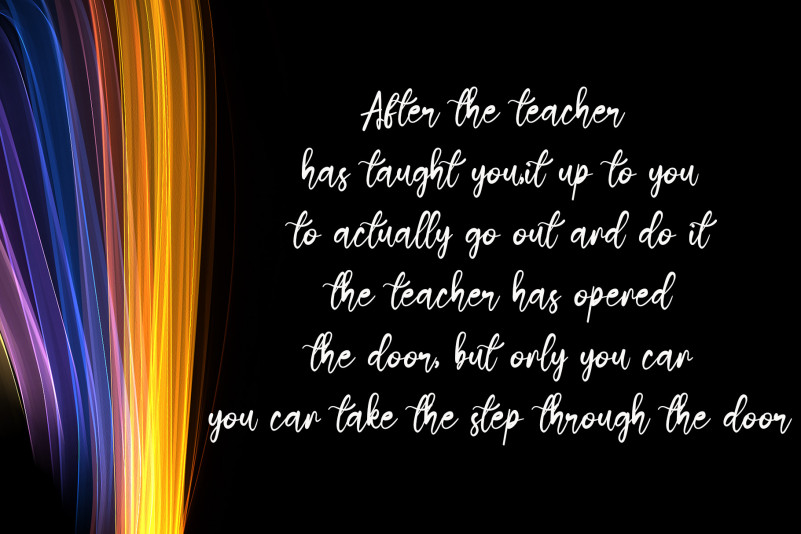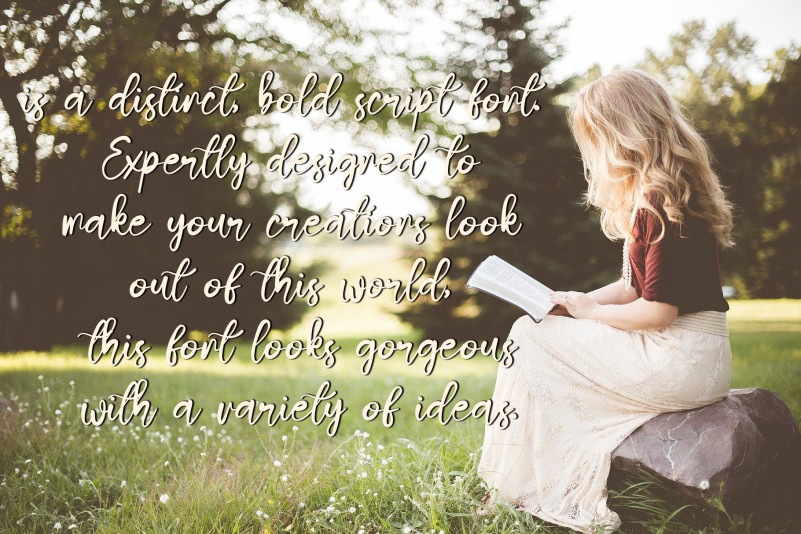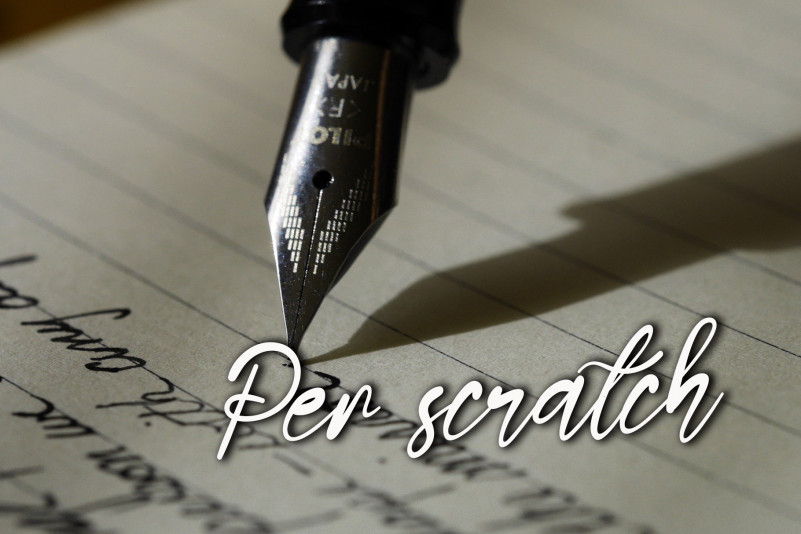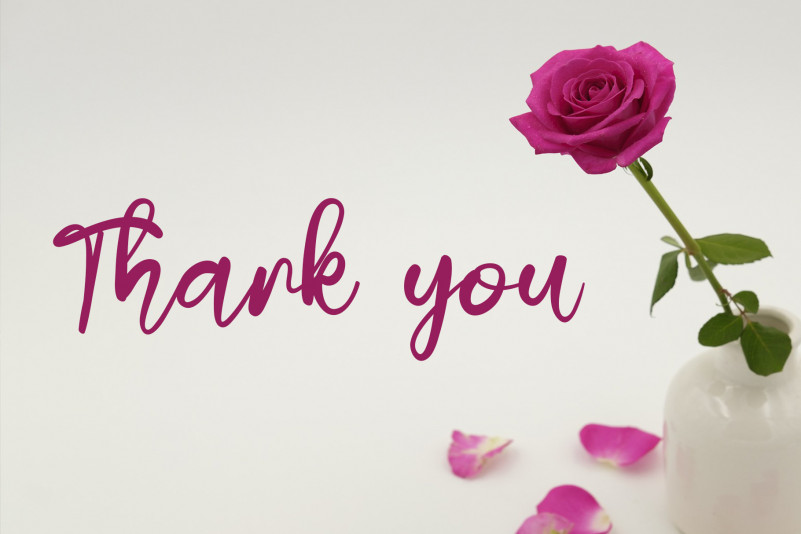
Sketchbook Script Font
This is a sweet and delicate handwritten font. Dainty and joyful, this font will be ideal for writing wedding invitations, cards, or any other design that may need a romantic, personalized touch!